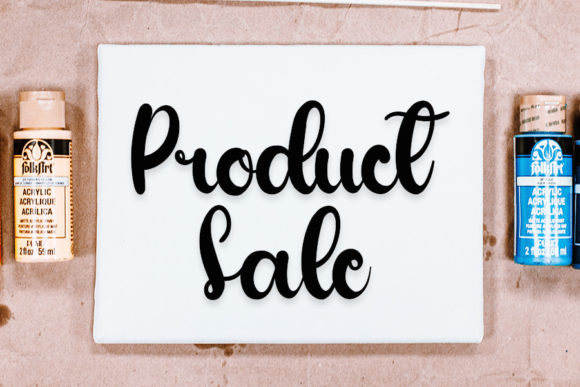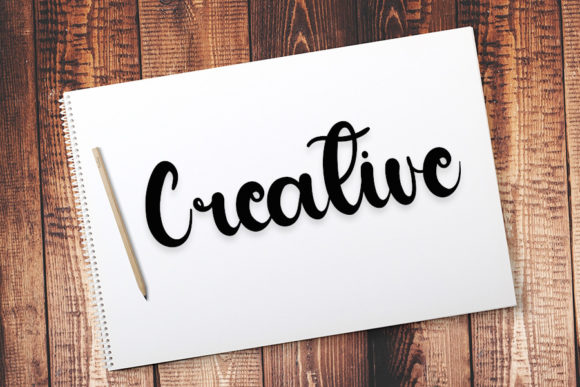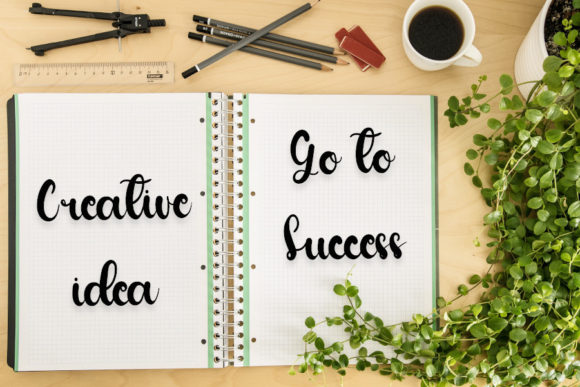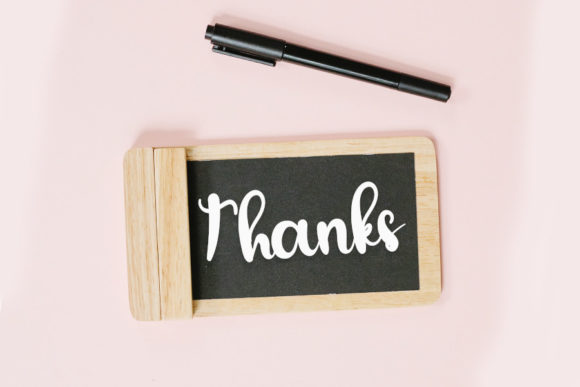
Introducing August Font: A Friendly Handwritten Delight
Are you on the hunt for a font that exudes elegance, sophistication, and a touch of modern flair? Look no further than August Font, a beautiful handwritten typeface that’s sure to become your new favorite. Designed with care and attention to detail, August Font seamlessly blends classic calligraphic influences with a fresh, contemporary feel.
What Makes August Font Special?
August Font is more than just a pretty face – it’s a versatile and highly functional font that’s perfect for a wide range of design projects. Here are just a few of the features that set it apart:
• PUA Encoding: August Font is PUA (Private Use Area) encoded, which means you can easily access all of the amazing glyphs and ligatures without any hassle. This feature makes it simple to get the most out of your font and add an extra layer of creativity to your designs.
• Classy Calligraphic Influences: August Font’s design is rooted in traditional calligraphy, giving it a sophisticated and elegant feel that’s perfect for high-end branding, wedding designs, and other luxury projects.
• Contemporary and Fresh: Despite its classic influences, August Font has a distinctly modern feel that’s perfect for designers who want to create something new and exciting. Its clean lines, flowing curves, and subtle imperfections make it feel approachable and relatable.
Uses for August Font
August Font is an incredibly versatile typeface that can be used for a wide range of design projects, including:
• Branding and Logos: August Font’s elegant, sophisticated feel makes it perfect for high-end branding and logo design. Use it to create a luxurious and memorable brand identity that will leave a lasting impression.
• Wedding Designs: August Font’s romantic, whimsical feel makes it a popular choice for wedding designs, including invitations, programs, and other stationery.
• Packaging and Product Design: August Font’s clean, modern lines make it perfect for packaging and product design. Use it to add a touch of sophistication and elegance to your product labels, packaging, and marketing materials.
• Digital Design: August Font is also perfect for digital design, including social media graphics, email headers, and website titles. Its clear, legible lines make it easy to read on a variety of devices and screen sizes.
Tips for Getting the Most Out of August Font
To get the most out of August Font, here are a few tips to keep in mind:
• Experiment with Ligatures: August Font’s PUA encoding makes it easy to access a range of ligatures and glyphs. Experiment with different combinations to add an extra layer of creativity to your designs.
• Play with Font Sizes: August Font looks great at a variety of font sizes, from large headings to smaller body text. Experiment with different sizes to find the perfect balance for your design.
• Pair it with Other Fonts: August Font pairs beautifully with a range of other fonts, from modern sans-serifs to elegant serifs. Experiment with different pairings to find the perfect combination for your design.
August Font is a truly exceptional handwritten typeface that’s sure to become a favorite among designers and crafters. Its unique blend of classic calligraphic influences and modern flair makes it perfect for a wide range of design projects, from high-end branding to digital design. With its PUA encoding, elegant design, and versatility, August Font is a must-have for anyone looking to add a touch of sophistication and elegance to their designs.